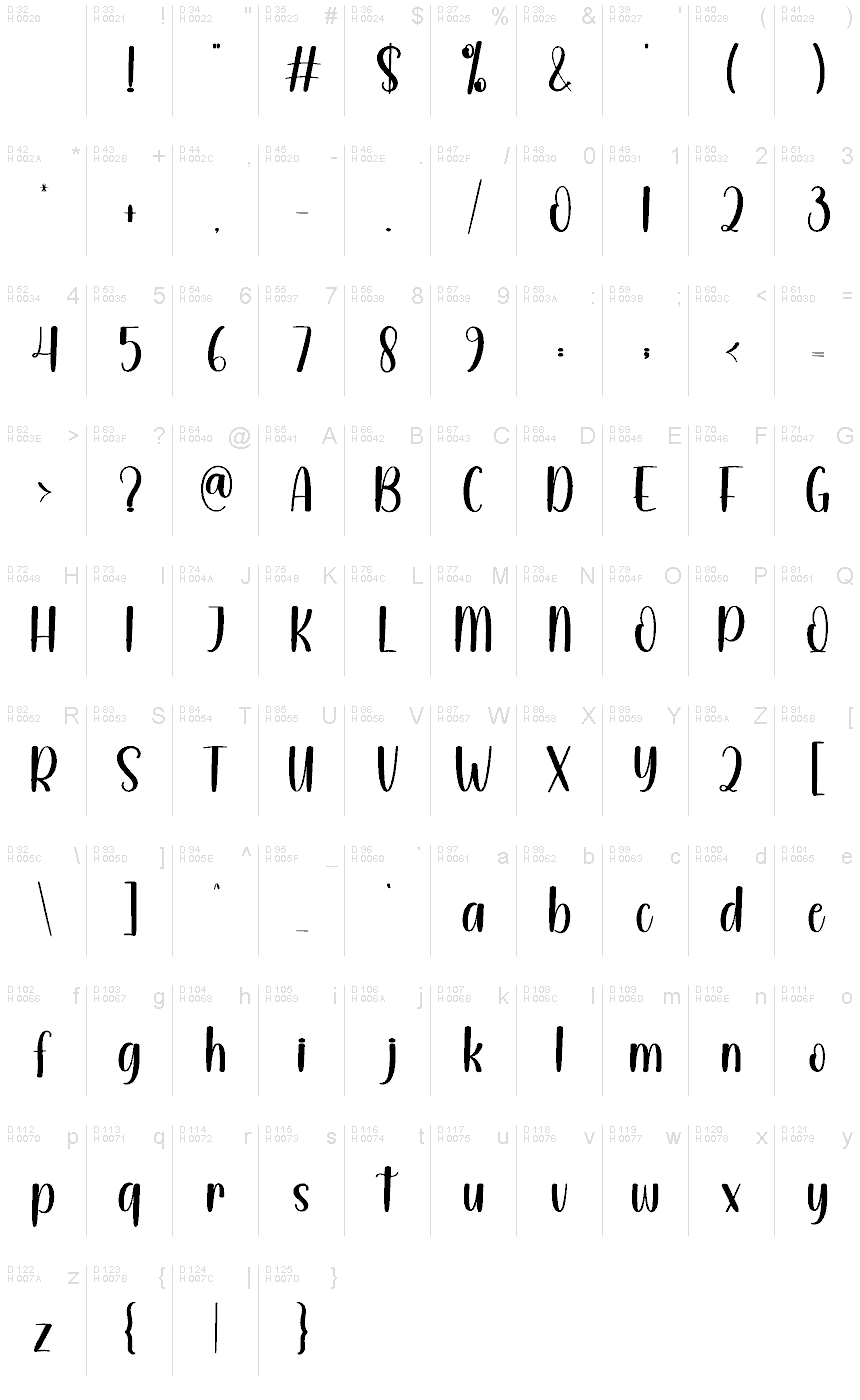
Beach Day
Beach Day font by Andi Moz is a modern handwritten creation with a casual feel and elegant yet smooth appearance. Its flowing characters mix the luxurious and swirly touches of calligraphy, making it kind on the eyes even when used for longer texts. In a world of trends, here is a font that always holds its unmistakable appeal.